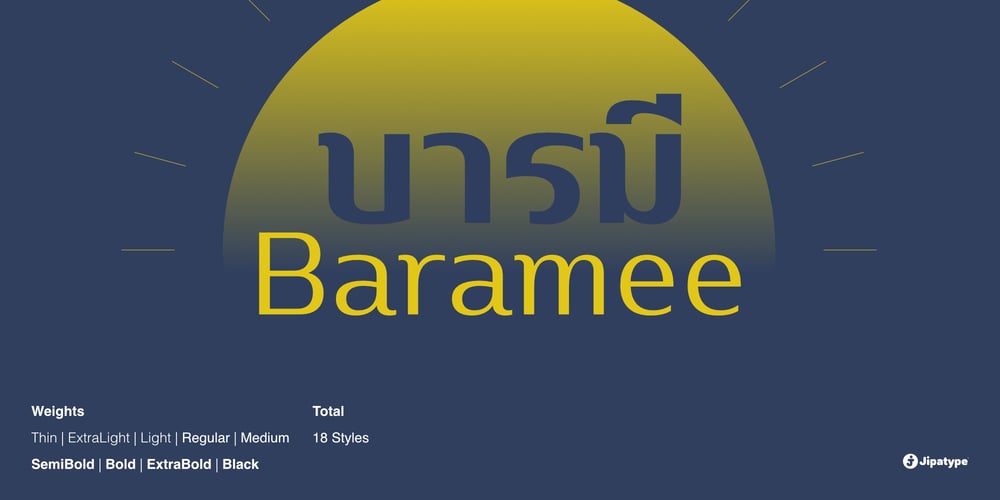
Baramee Font Family was designed by Anupap Jaichumnan and published by Jipatype. Baramee contains 18 styles and family package options. Baramee is a sans-serif typeface characterized by horizontal lines that are half the thickness of the vertical lines, creating a subtle yet effective contrast. The terminals are cut vertically, and Thai letters adopt the spur form of Latin letters at their heads, imparting a dignified and prestigious appearance with a contemporary touch. With 18 styles available, supporting Latin-1 and Thai characters, Baramee is suitable for a variety of online and offline publications, emphasizing dignity, prestige, and auspiciousness.